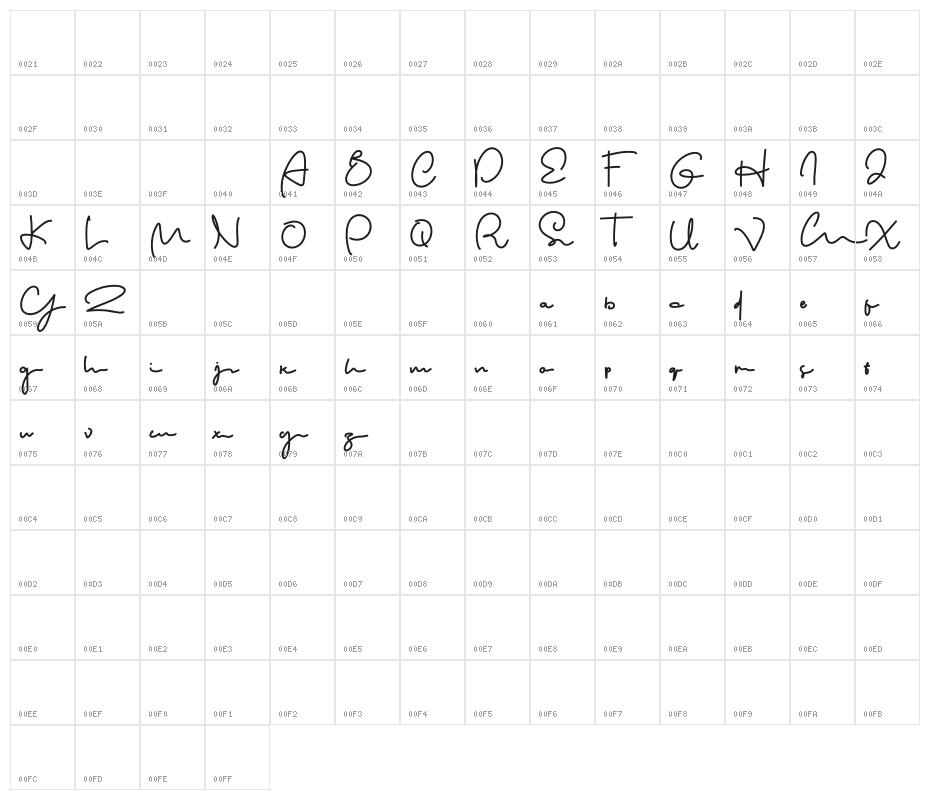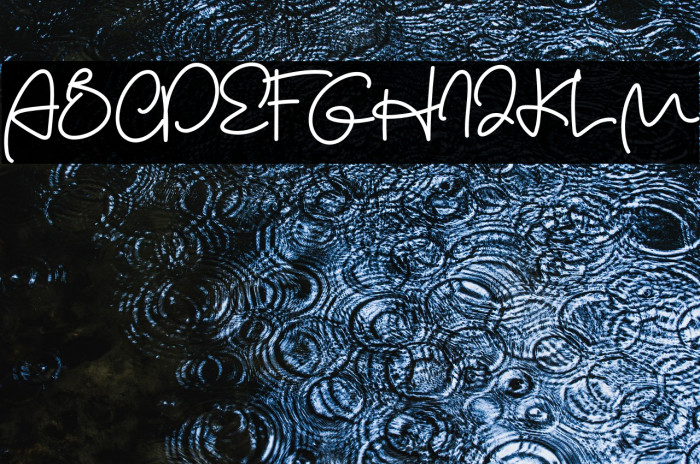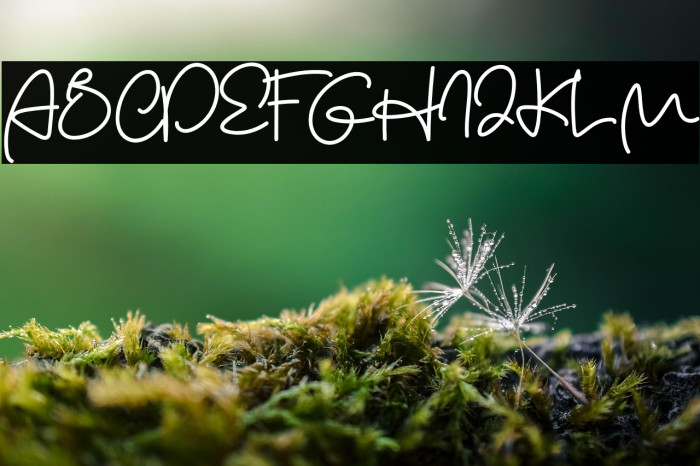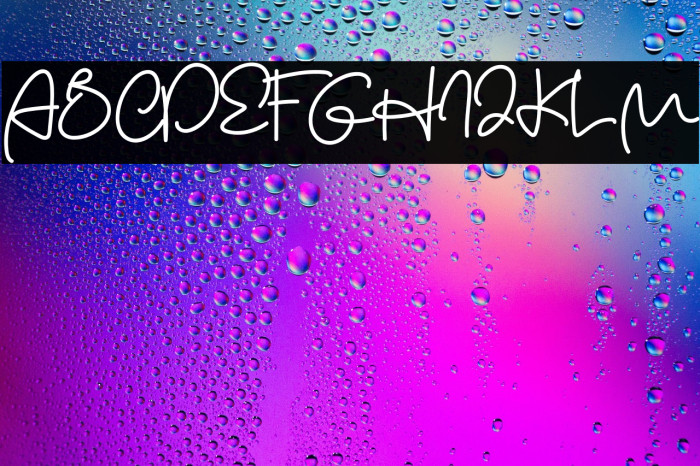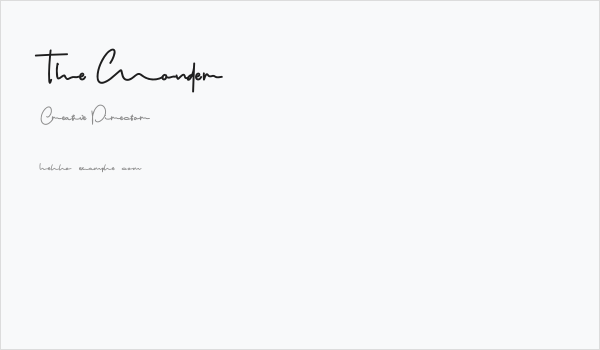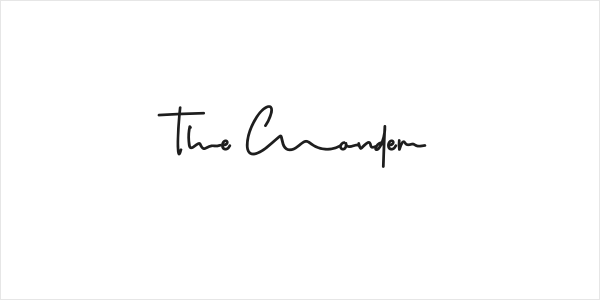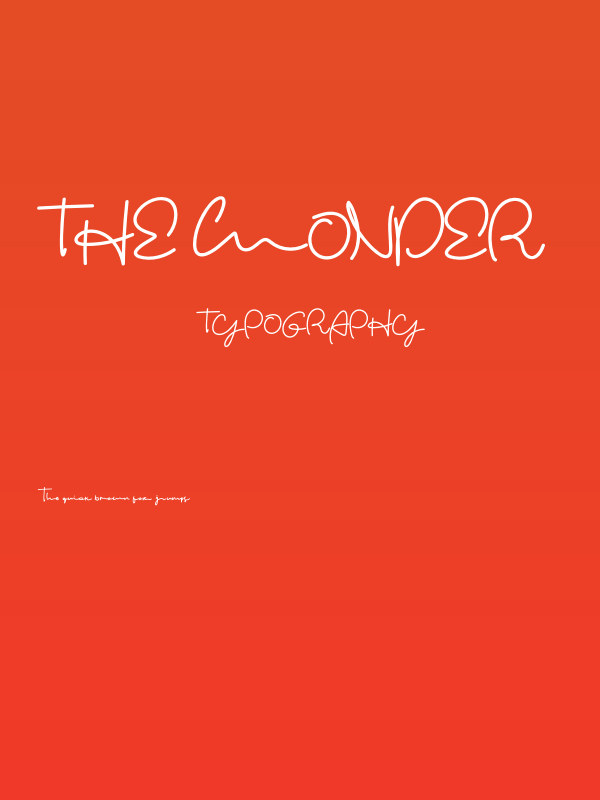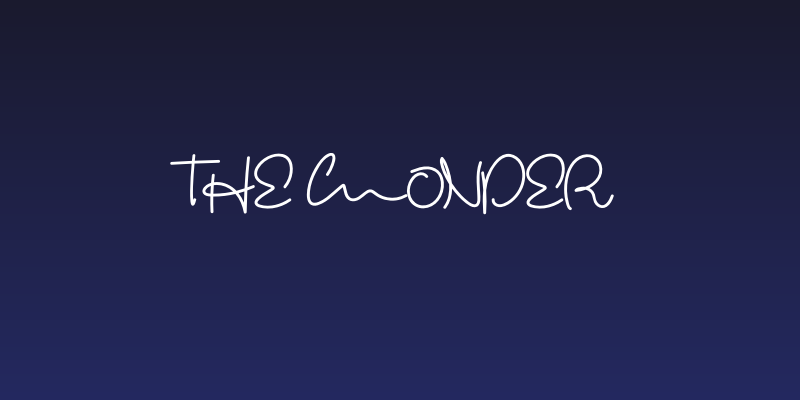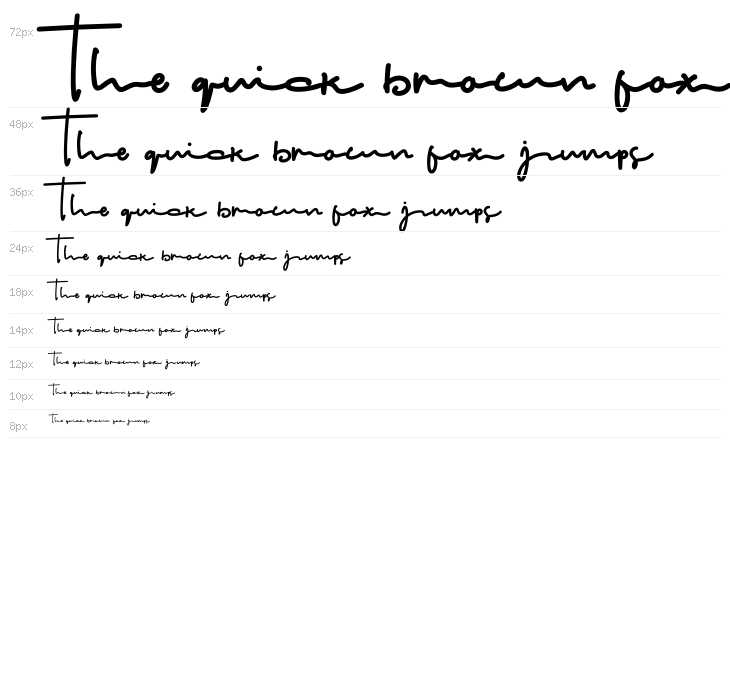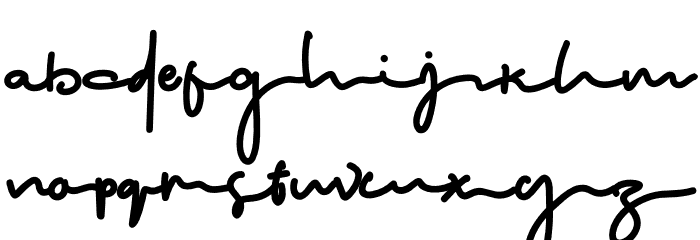
The Wonder Font
The Wonder Description
This font features a playful and casual handwritten style, characterized by its fluid and connected strokes. The uppercase letters have a whimsical flair, with varying heights and a slight slant that adds to the informal feel. The lowercase letters maintain a consistent flow, enhancing readability while preserving the handwritten charm. The numbers and special characters are crafted with the same playful touch, making them blend seamlessly with the alphabet. This font exudes a sense of warmth and approachability, perfect for projects that require a personal and friendly touch.